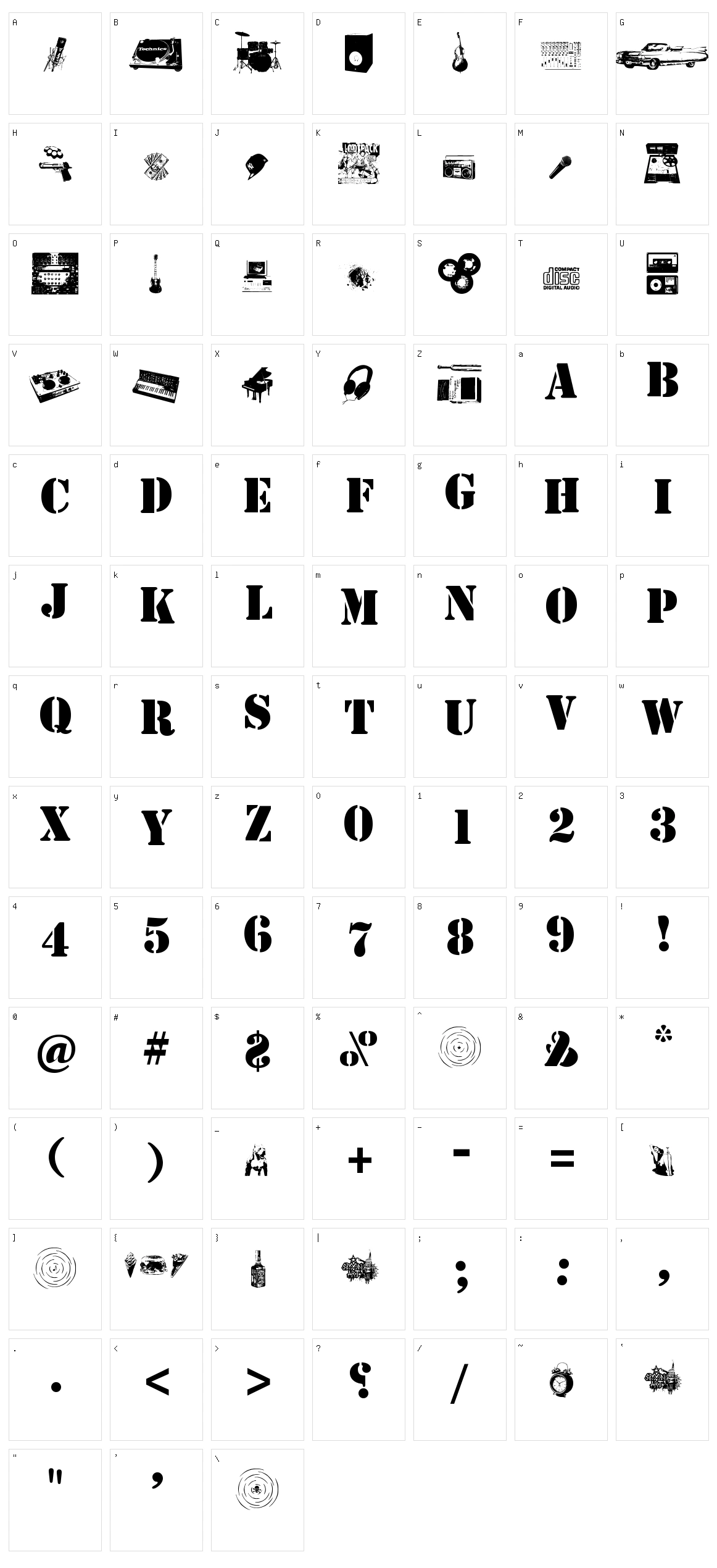
The free font Soundpieces is carefully designed by SpoOn Art, showcasing a thoughtful balance of creativity and usability and falls under the Stencil font style. When you download the ZIP file, it contains only 174.79 KB of font files, making it lightweight and quick to download. Please review the license details below to understand permitted usage and distribution rights. If license information is not available, we recommend using this font for personal projects only or contacting the author directly for commercial usage permissions.